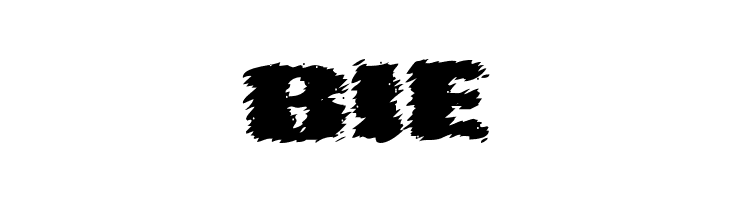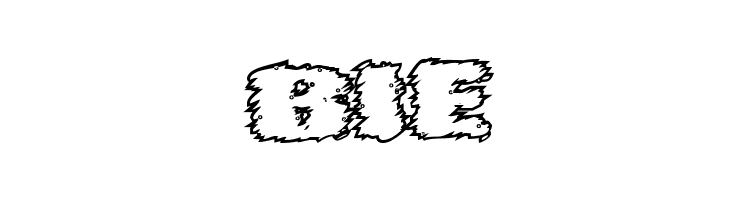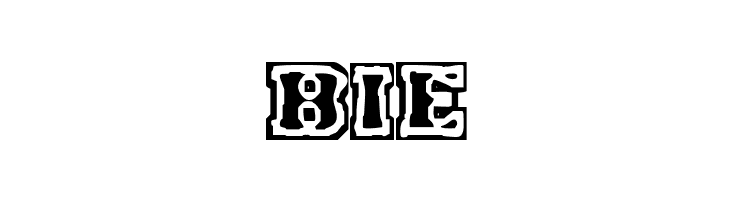
A playful, bold font with chunky, whimsical characters.
A bold, jagged, and distressed decorative font with a rugged appearance.
A playful, textured font with a fluffy, jagged outline.
A bold, playful font with a hand-drawn, irregular style.
A bold, outlined font with a playful, collegiate style.
A bold, distressed font with a hand-painted, expressive style.
A bold, playful font with a dripping effect, ideal for creative projects.
A bold, dripping font with a spooky, playful style.
A bold, dripping font with a playful, spooky aesthetic.
A bold, dripping font with a playful, spooky style.